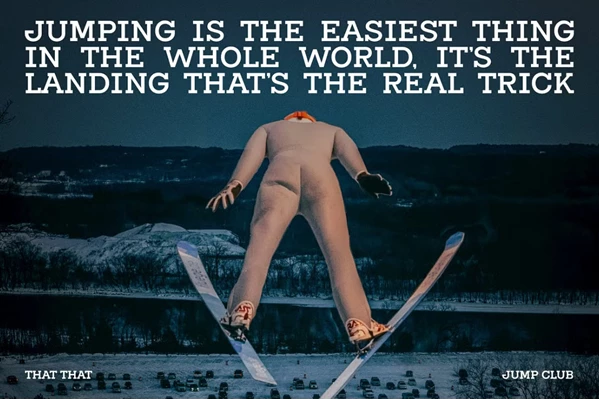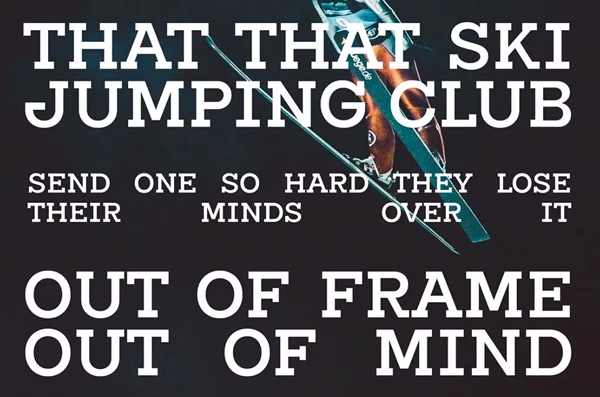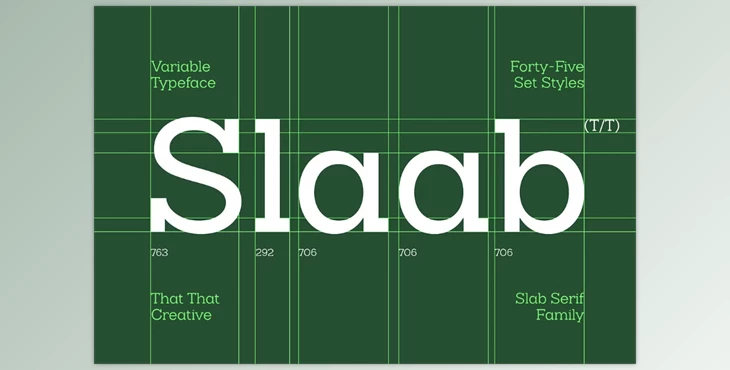
Slaab Font Family 45 Styles:
Slaab Font Family is a contemporary slab serif designed with stability and versatility. This font family is inspired by Switzerland and includes 45 styles across the entire family in width and weight, rendering that crisp Swiss look easy for any project in need of cleanliness and legibility. Ideal for long-read paragraphs, posters, webpages, and branding logos. Slaab will flex to your creative endeavor and look good doing it.
- 45 styles
- variable font
- Adobe Latin 3 120+ languages supported
- alternative style sets for 'a and 'I'
- case-sensitive punctuation included